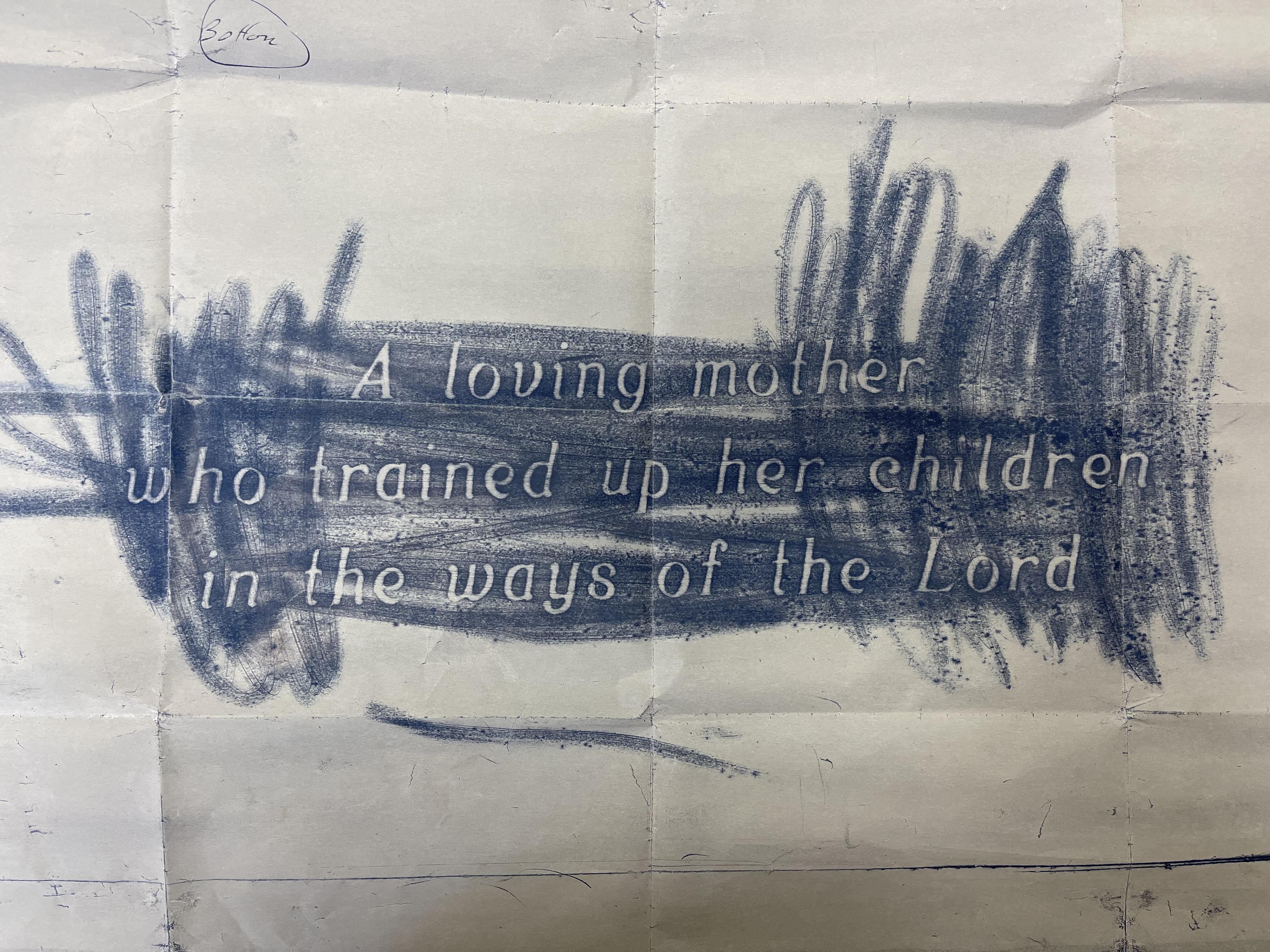
Hello John, this is Monu-Cad’s version of an old plastic stencil press alphabet. The capital ‘A’ and ‘L’ are from Monu-Cad’s “Roman Italic Medium”, while the lowercase is from their version of the font named “Stylish Sandblast 1”. There is also a version of it in Gerber named “Sandblast I ACCT. A.K. REV.B”, though Gerber does not have a version of Monu-Cad’s “Roman Italic Medium”.
The stencil press alphabet was listed in the PMD Cutrite catalog as “Fancy Roman”, though it is believed to have originally been a Gaspari/PALL Corporation alphabet. However, as of yet a PALL catalog image has not been found. Below is an image of the lowercase from PMD’s catalog. There was also an uppercase and a set of numerals.